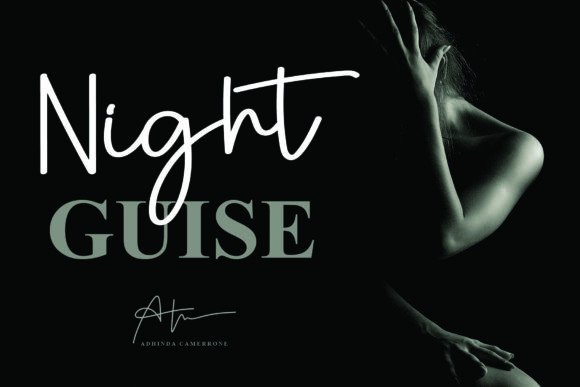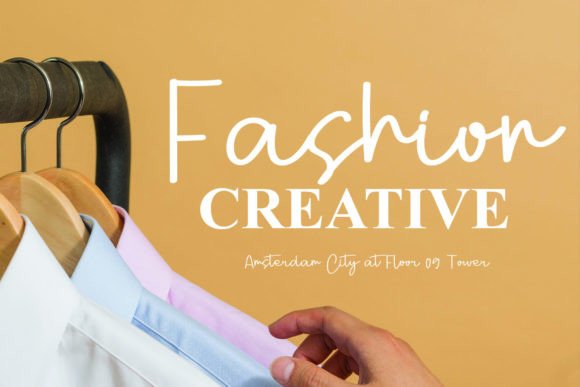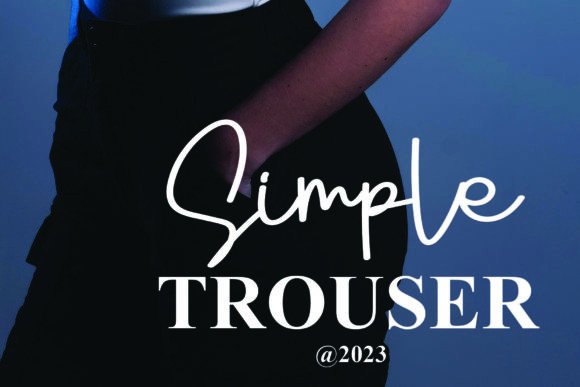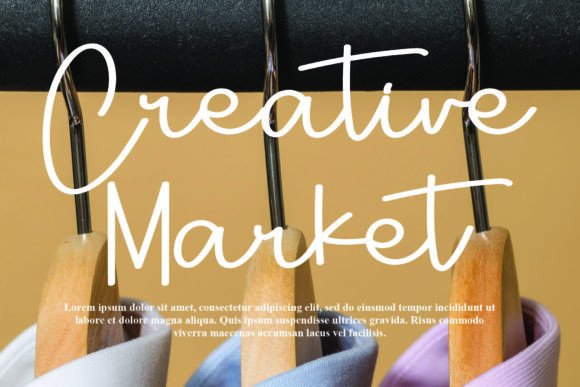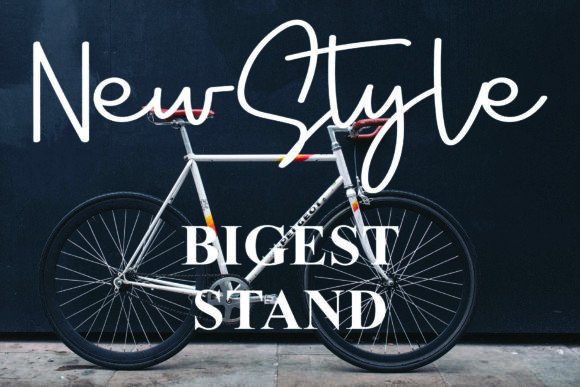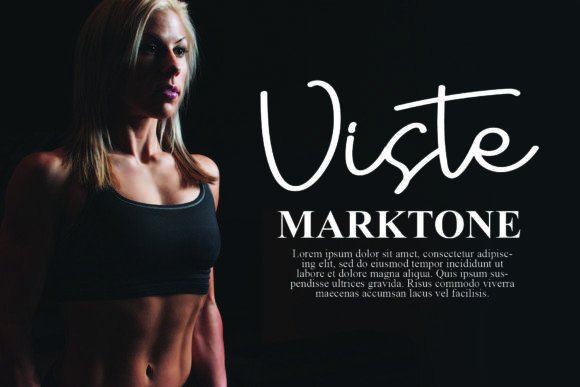
Introduction to Slimfite Font
Have you ever stared at a blank canvas, waiting for inspiration to strike, only to have it hit you like a ton of creative bricks? That’s exactly what happened to me when I discovered the Slimfite Font. Its quirky, handwritten charm instantly lit up my design space and transported me to a world of fun and playfulness.
As a designer, I know how valuable it is to have the right tools at your disposal. The Slimfite Font is a game-changer, perfect for adding a personal touch to any project. Whether you’re working on a branding project, creating a wedding invitation, or designing a packaging label, this font is sure to bring a smile to your face and your clients’ faces.
What makes the Slimfite Font truly special is its high-quality design, available for free download with a transparent background, making it a fantastic resource for any creative project. Get ready to unleash your creativity and take your designs to the next level with the Slimfite Font!
Key Features of Slimfite Font
- Unique, modern font style with a transparent background, perfect for adding a touch of elegance to your design.
- Suitable for a variety of design applications, including logos, graphics, and text-based designs.
Honest Review: Slimfite Font
As a designer, I’m always on the lookout for high-quality design resources that can elevate my creative projects. Recently, I had the chance to try out the Slimfite Font, and I’m excited to share my honest review with you.
- ✨ Sleek and modern design aesthetic that’s perfect for minimalist branding
- ✨ High-quality typography that’s crisp and clear even at small sizes
- ✨ Transparent background option for easy use on any design background
While the Slimfite Font is a great addition to any design resource collection, there are a few limitations to keep in mind:
- ⚠️ Limited character set, which may not be suitable for longer blocks of text
- ⚠️ Not suitable for use in situations where readability is crucial (e.g. body text)
Overall, I’m impressed with the Slimfite Font. It’s a great choice for designers who need a high-quality, modern font for their creative projects. And the best part? It’s available for free download, making it a valuable resource for designers of all levels.
Tips for Getting the Most Out of Slimfite Font
To maximize the impact of the Slimfite Font, experiment with different font sizes, colors, and combinations. Use it in conjunction with other design elements to create a cohesive and engaging visual identity.
The Slimfite Font is ideal for creative projects such as logos, branding, and marketing materials. Its high-quality design makes it perfect for presentations, reports, and other formal documents.